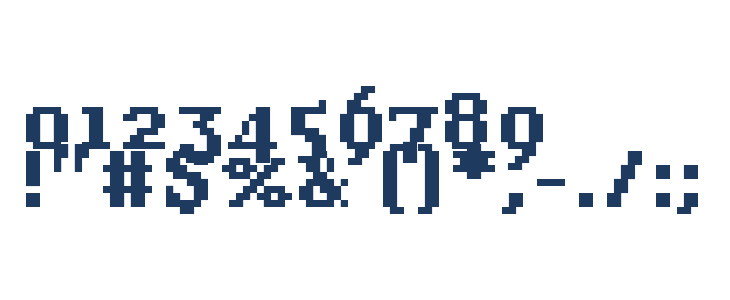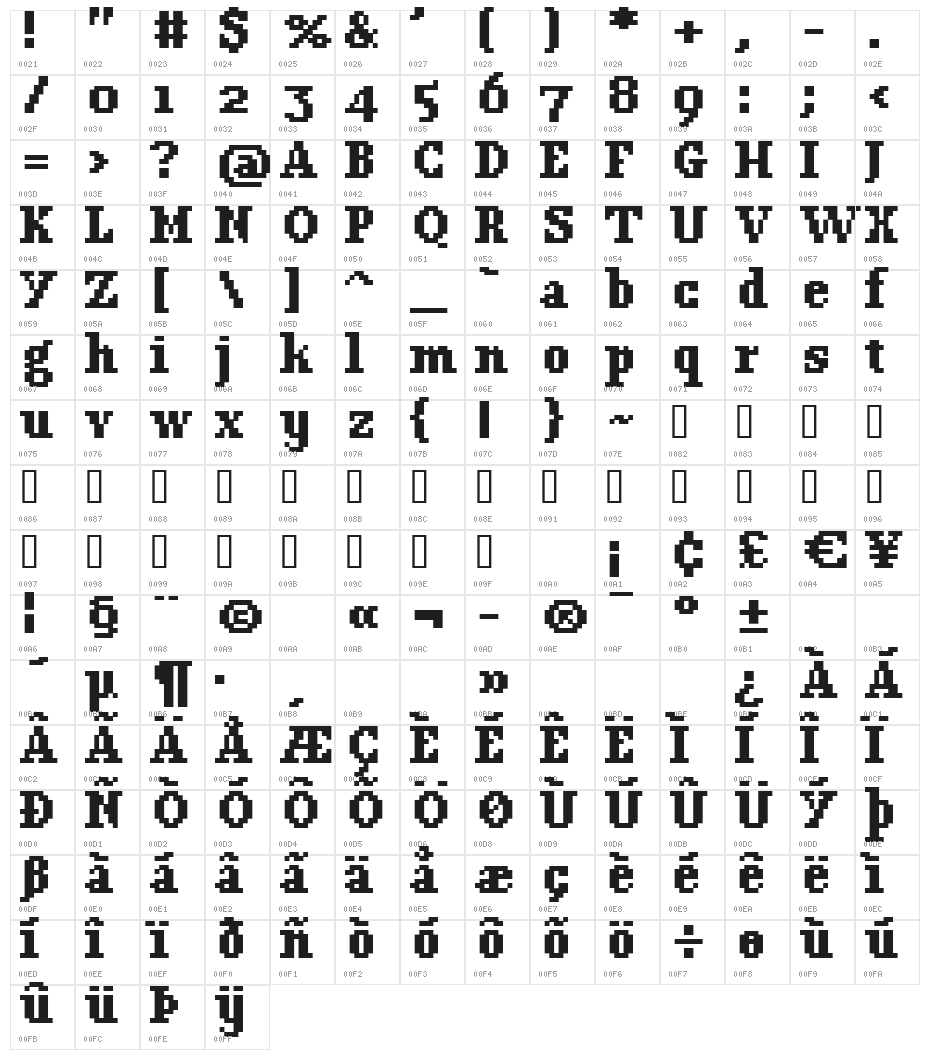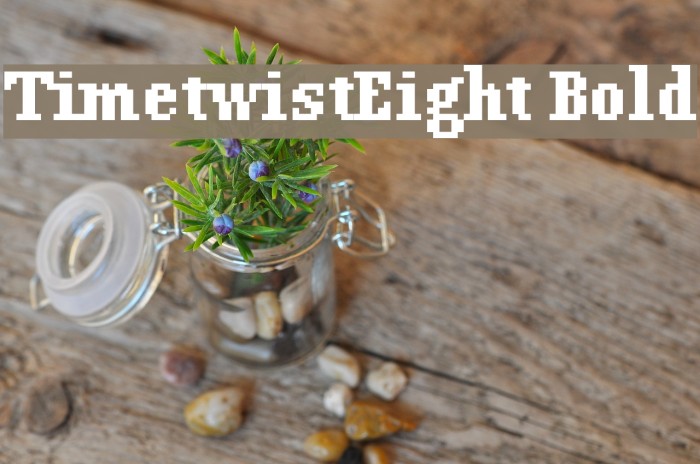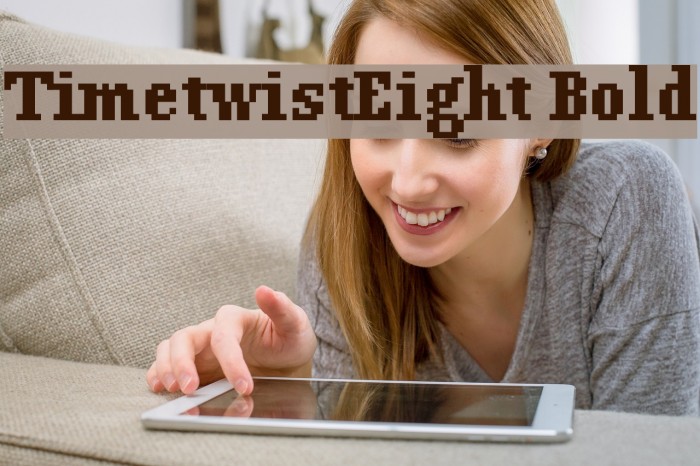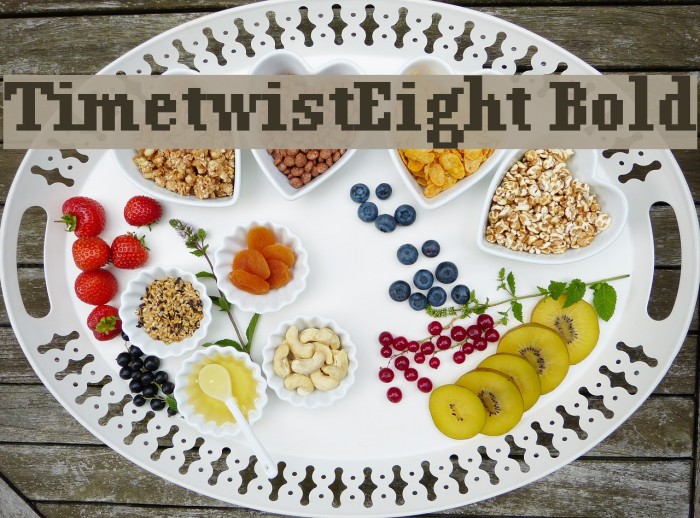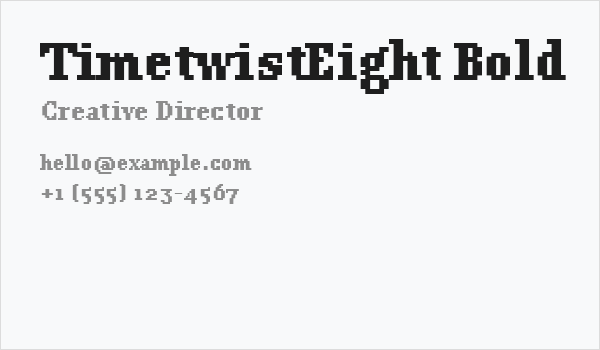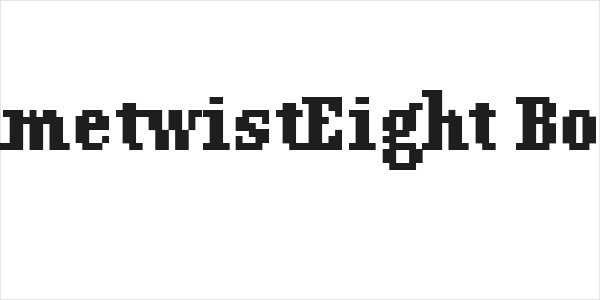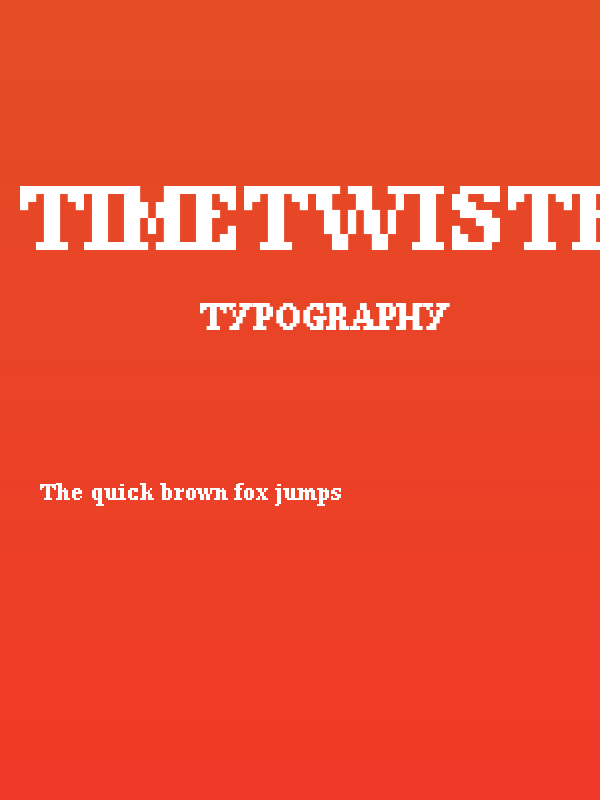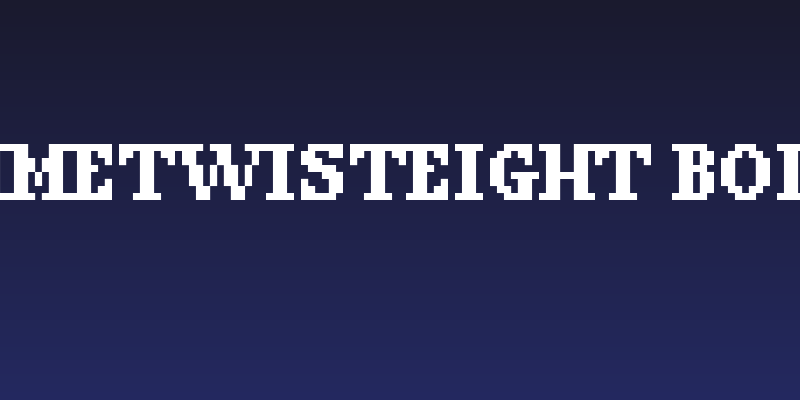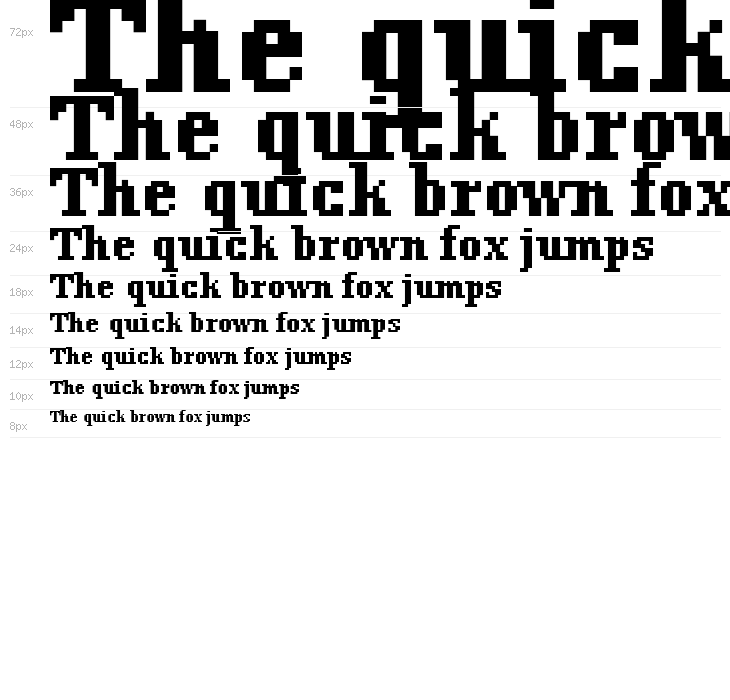
TimetwistEight Bold Font
TimetwistEight Bold Description
This font features a bold and blocky design with a pixelated style reminiscent of early digital typography. The characters are uniformly thick, with a consistent stroke width that gives it a strong, impactful presence. The uppercase and lowercase letters maintain a similar width, contributing to a cohesive look. The numbers and special characters are designed to match the boldness of the alphabet, ensuring a uniform appearance across all glyphs. This font's retro aesthetic makes it ideal for projects that aim to evoke nostalgia or a vintage digital feel.
| Proposed Projects | Ideal for video game design, retro-themed posters, digital art projects, and any creative work that requires a vintage digital look. |